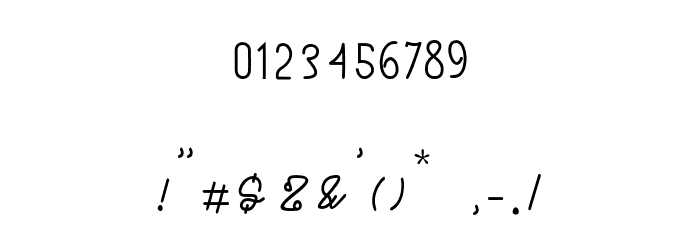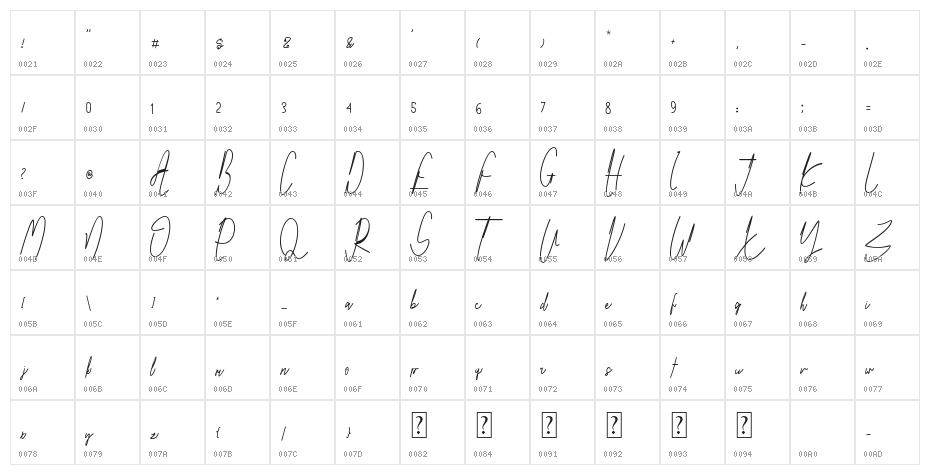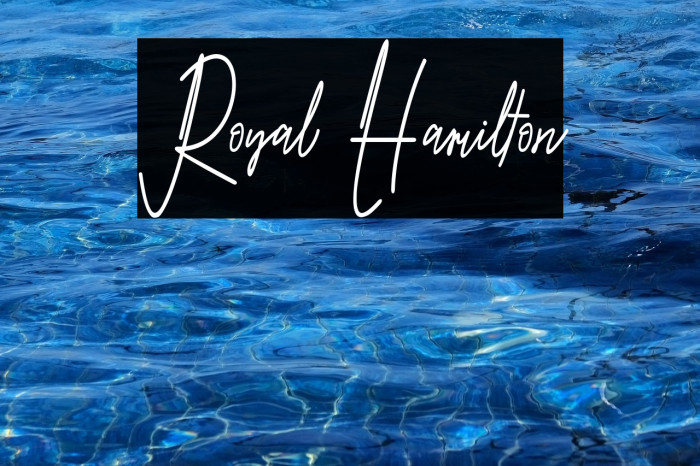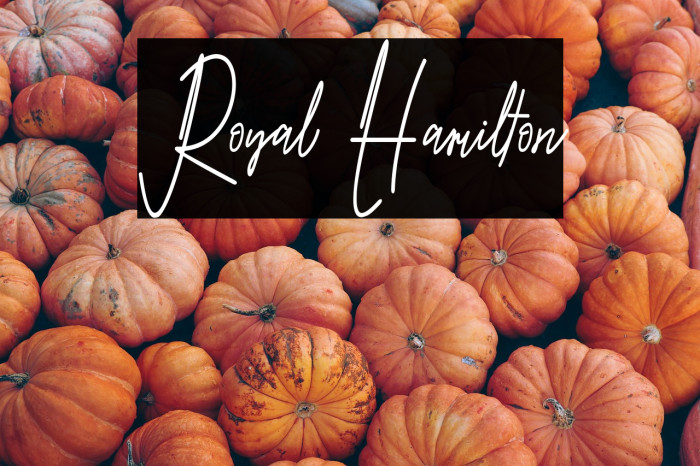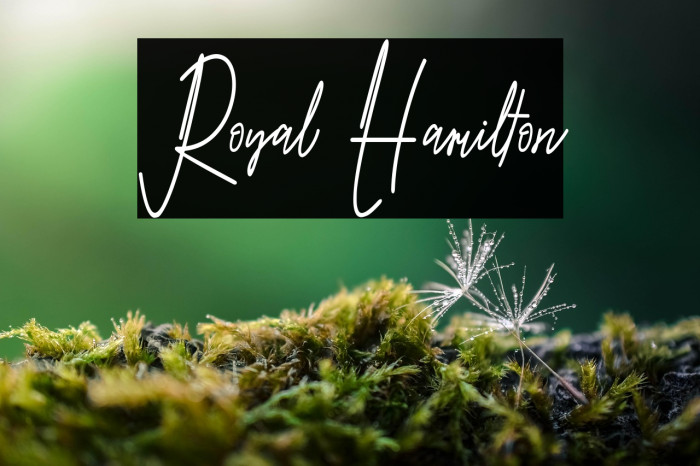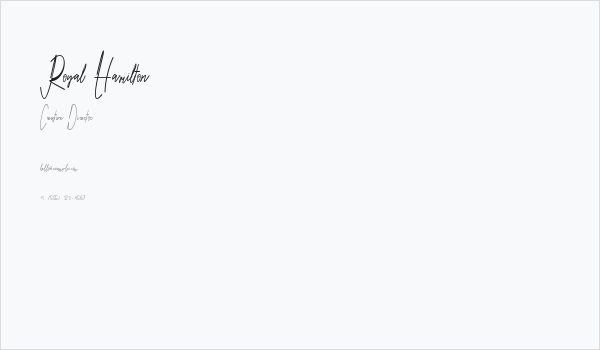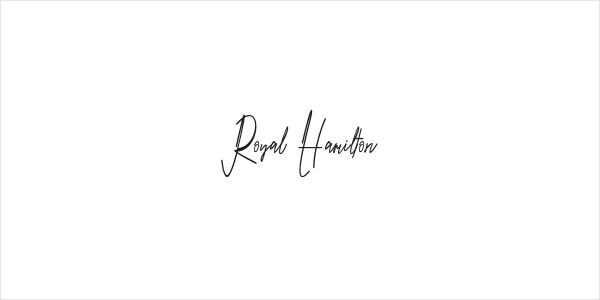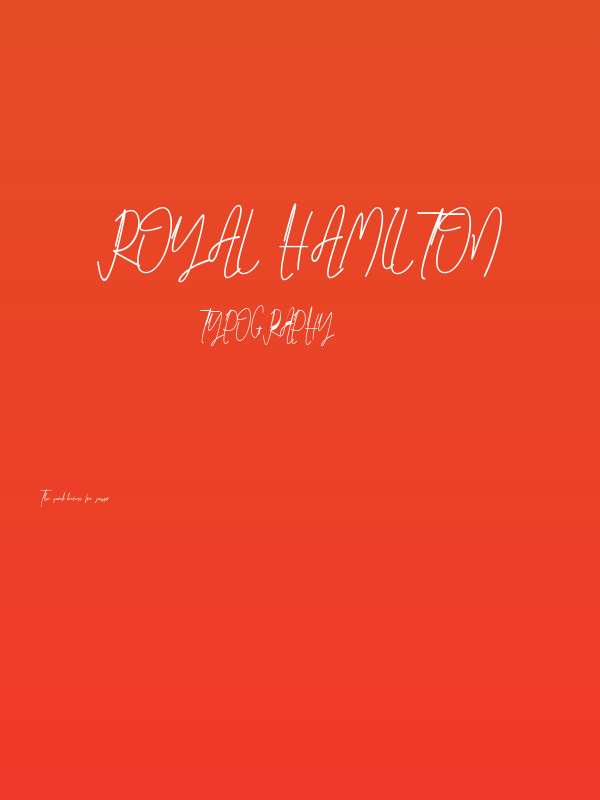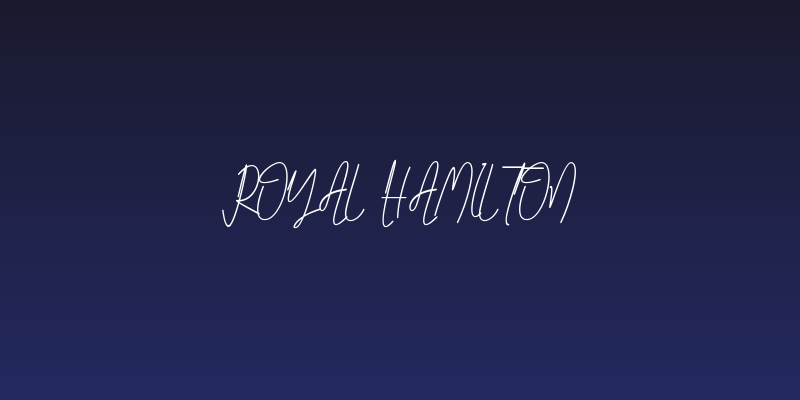
Royal Hamilton Font
Royal Hamilton Description
This font features a distinctive handwritten style with elegant, flowing lines that give it a sophisticated and artistic appearance. The uppercase letters are tall and slender, with a slight slant that adds a dynamic feel. The lowercase letters maintain a consistent flow, enhancing readability while preserving the artistic flair. The numerals are clean and straightforward, complementing the overall style. Special characters are thoughtfully designed to match the font's aesthetic, making it versatile for various uses. The font's unique style makes it suitable for creative projects that require a personal touch.